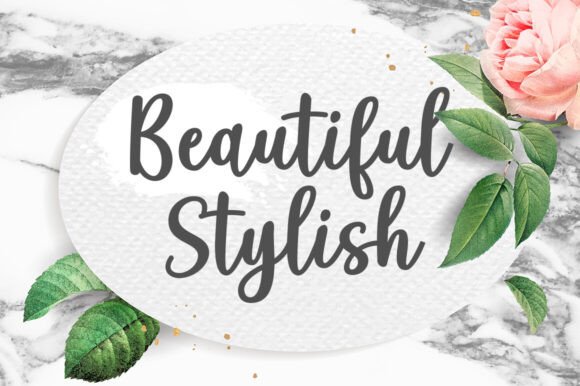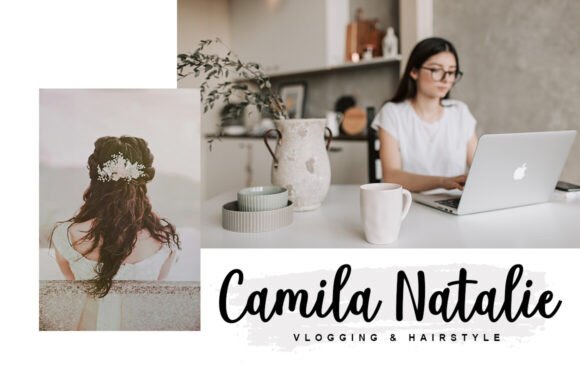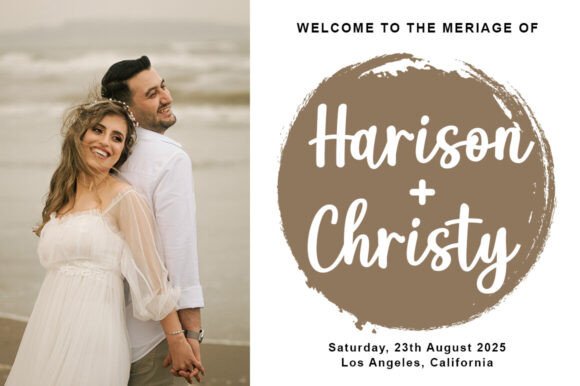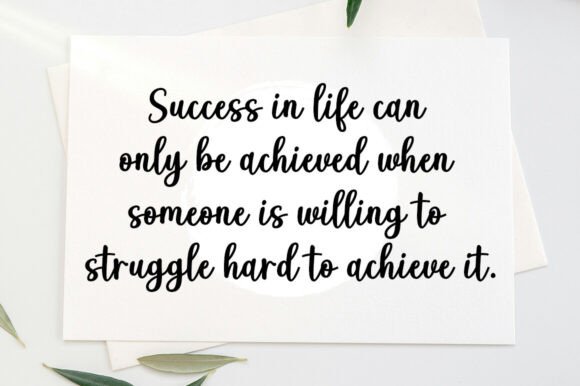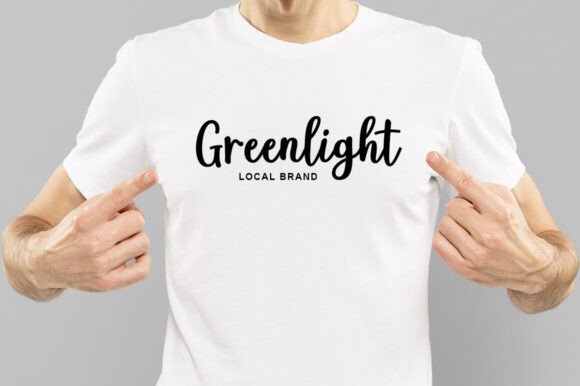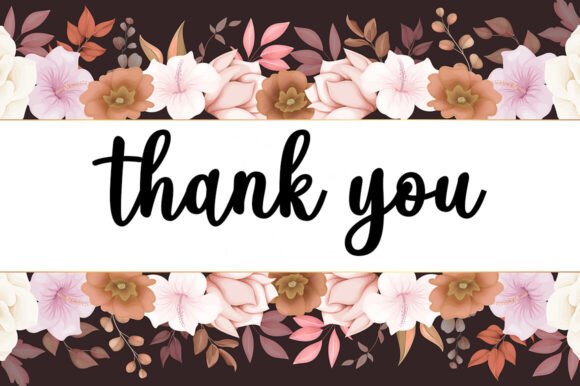
Introducing Autography Farmhouse Font: A Handcrafted Script with a Girly and Modern Twist
Are you a designer or crafter looking for a unique and eye-catching font to elevate your graphic designs? Look no further than Autography Farmhouse Font, a handcrafted script that exudes a sense of femininity and modernity. This original typeface is perfect for a wide range of design projects, from branding materials and t-shirts to prints, business cards, logos, posters, and more.
The Characteristics of Autography Farmhouse Font
Autography Farmhouse Font is a one-of-a-kind script that boasts a range of distinctive characteristics. Its handcrafted nature gives it a personal and organic feel, while its girly and modern style makes it perfect for designs that require a touch of elegance and sophistication. The font features:
- Handcrafted script with a personal and organic feel
- Girly and modern style, perfect for feminine designs
- Original typeface, ensuring uniqueness and exclusivity
- Suitable for a wide range of design projects, including branding materials, t-shirts, prints, business cards, logos, posters, and more
Uses for Autography Farmhouse Font
Autography Farmhouse Font is an incredibly versatile typeface that can be used in a variety of design projects. Here are some ideas to get you started:
- Branding Materials: Use Autography Farmhouse Font to create eye-catching logos, business cards, and letterheads that showcase your brand’s personality and style.
- T-Shirts and Apparel: Add a touch of elegance and sophistication to your t-shirt and apparel designs with this beautiful script font.
- Prints and Posters: Create stunning prints and posters that showcase your artistic side, from inspirational quotes to beautiful photography.
- Social Media Graphics: Use Autography Farmhouse Font to create engaging social media graphics, including Facebook and Instagram posts, that are sure to grab attention.
Why Choose Autography Farmhouse Font?
With so many fonts available, why choose Autography Farmhouse Font? Here are just a few reasons why this handcrafted script stands out from the crowd:
- Unique and Exclusive: As an original typeface, Autography Farmhouse Font ensures that your designs stand out from the crowd and are instantly recognizable.
- High-Quality Design: With its handcrafted nature and attention to detail, Autography Farmhouse Font is a high-quality design that will elevate your projects and leave a lasting impression.
Tips for Using Autography Farmhouse Font
To get the most out of Autography Farmhouse Font, here are a few tips to keep in mind:
- Pair with Other Fonts: Experiment with pairing Autography Farmhouse Font with other fonts to create interesting and dynamic designs.
- Use in Combination with Images: Use Autography Farmhouse Font in combination with beautiful images to create stunning visual designs.
Autography Farmhouse Font is a handcrafted script that offers a unique and eye-catching solution for designers and crafters. With its girly and modern style, this original typeface is perfect for a wide range of design projects, from branding materials and t-shirts to prints, business cards, logos, posters, and more. Whether you’re looking to add a touch of elegance and sophistication to your designs or simply want to stand out from the crowd, Autography Farmhouse Font is an excellent choice.